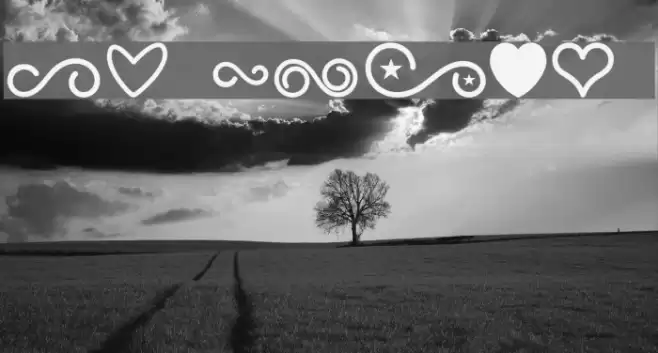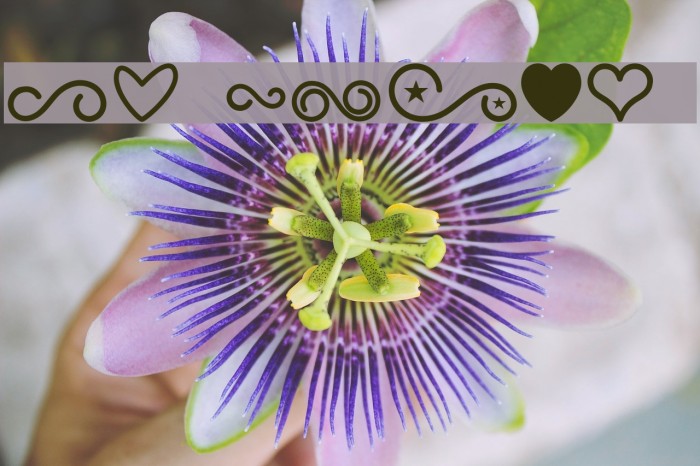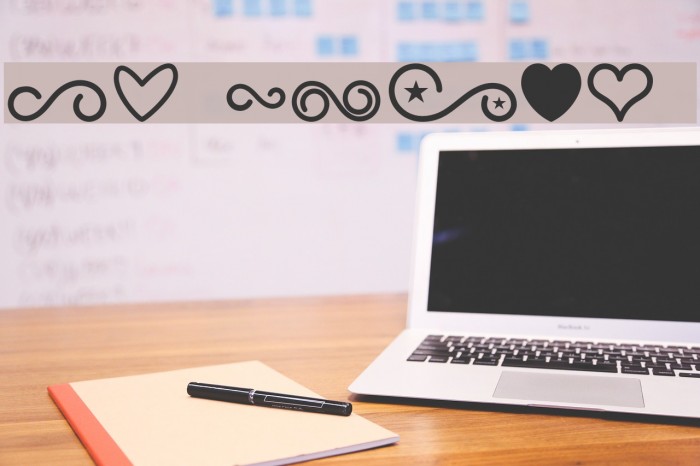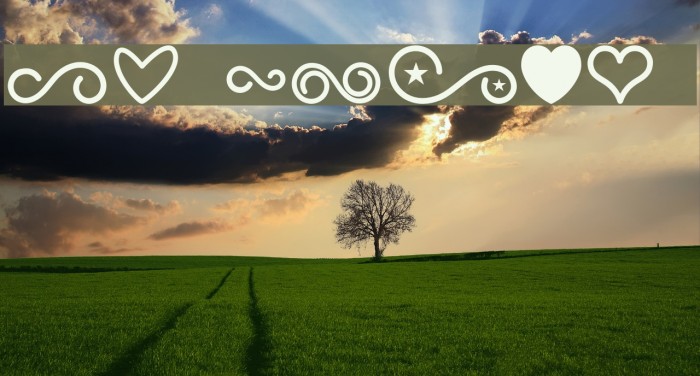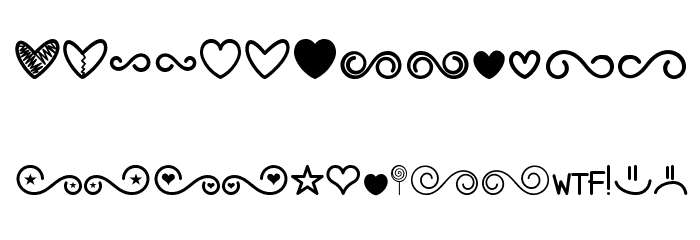
MF Dings 3 Font
This font is a playful and decorative collection of symbols and dingbats, featuring a variety of whimsical designs such as hearts, stars, swirls, and emoticons. The characters are bold and expressive, with a hand-drawn feel that adds a touch of fun and creativity. The elements are perfect for adding a unique flair to projects that require a lighthearted and artistic touch. The symbols are well-defined and can be used to create borders, embellishments, or standalone decorative elements.
A playful and decorative font with whimsical symbols and dingbats from Uncategorized fonts.
- Proposed Projects: Ideal for greeting cards, scrapbooking, party invitations, and playful graphic designs.
- Use Case: Logos, Headlines, Decorative elements